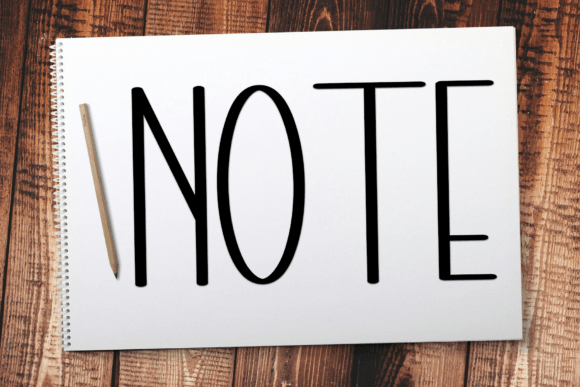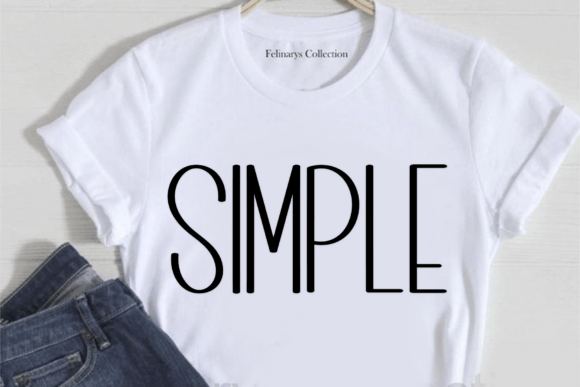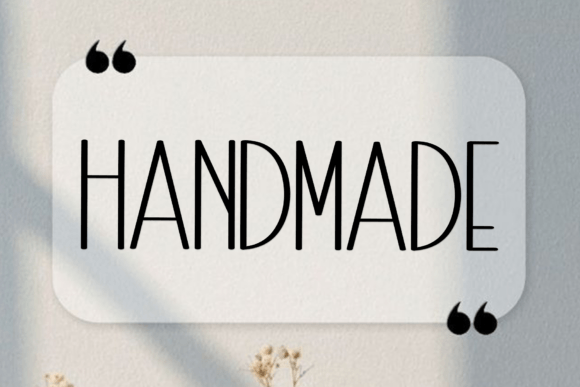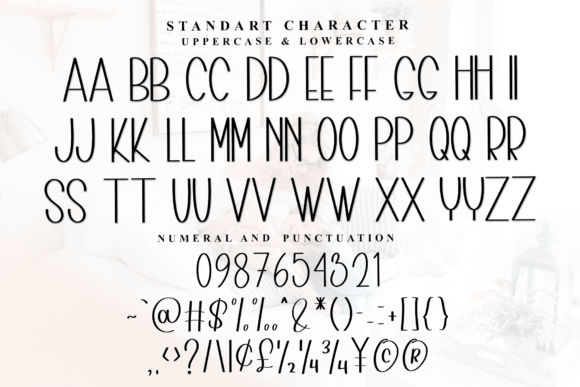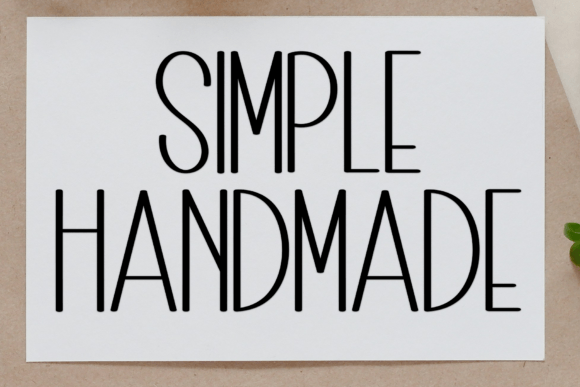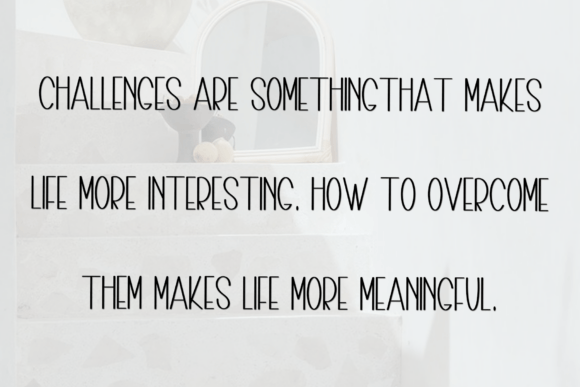
Introducing Charming Beautiful Font: Elevate Your Designs with Timeless Elegance
Are you searching for a font that exudes sophistication, elegance, and refinement? Look no further than Charming Beautiful, a stunning display font that is sure to elevate your designs to new heights. With its clean, elongated letterforms, this typeface is perfect for a wide range of applications, from branding and magazine titles to invitations and minimalist designs.
The Essence of Charming Beautiful Font
Charming Beautiful is a tall and elegant display font that radiates sophistication and grace. Its sleek, refined lines and classic proportions make it an ideal choice for designers seeking to add a touch of timeless beauty to their projects. Whether you’re working on a luxury brand identity, a high-end fashion magazine, or a sophisticated wedding invitation, this font is sure to impress.
Key Features of Charming Beautiful Font
- Clean and Elongated Letterforms: The font’s sleek, elongated letterforms give it a sense of elegance and refinement, making it perfect for headlines, titles, and other display text.
- Sophisticated and Versatile: Charming Beautiful is a highly versatile font that can be used in a wide range of applications, from print and digital media to branding and packaging.
- Timeless Beauty: With its classic proportions and refined lines, this font is sure to stand the test of time, making it a valuable addition to any designer’s font library.
Perfect for a Range of Design Applications
Charming Beautiful is an incredibly versatile font that can be used in a wide range of design applications. Here are just a few examples of how you can use this stunning font to elevate your designs:
- Branding: Use Charming Beautiful to create a sophisticated and elegant brand identity that reflects your company’s values and personality.
- Magazine Titles: Add a touch of glamour and sophistication to your magazine titles with this stunning display font.
- Invitations: Whether you’re designing wedding invitations, birthday invitations, or other special occasion invites, Charming Beautiful is sure to make a lasting impression.
- Minimalist Designs: This font is also perfect for minimalist designs, where its clean lines and classic proportions can help to create a sense of simplicity and elegance.
Why Choose Charming Beautiful Font?
With so many fonts to choose from, why should you choose Charming Beautiful for your next design project? Here are just a few reasons why this font stands out from the crowd:
- Unique and Memorable: Charming Beautiful is a unique and memorable font that is sure to help your designs stand out from the crowd.
- Elegant and Sophisticated: This font exudes elegance and sophistication, making it perfect for high-end designs and luxury brands.
- Highly Versatile: Charming Beautiful can be used in a wide range of applications, from print and digital media to branding and packaging.
In conclusion, Charming Beautiful is a stunning display font that is sure to elevate your designs to new heights. With its clean, elongated letterforms and sophisticated, elegant lines, this font is perfect for a wide range of applications, from branding and magazine titles to invitations and minimalist designs. Whether you’re a designer, craft, or DIY enthusiast, Charming Beautiful is a valuable addition to your font library. So why wait? Download Charming Beautiful today and add a touch of timeless beauty to your projects!